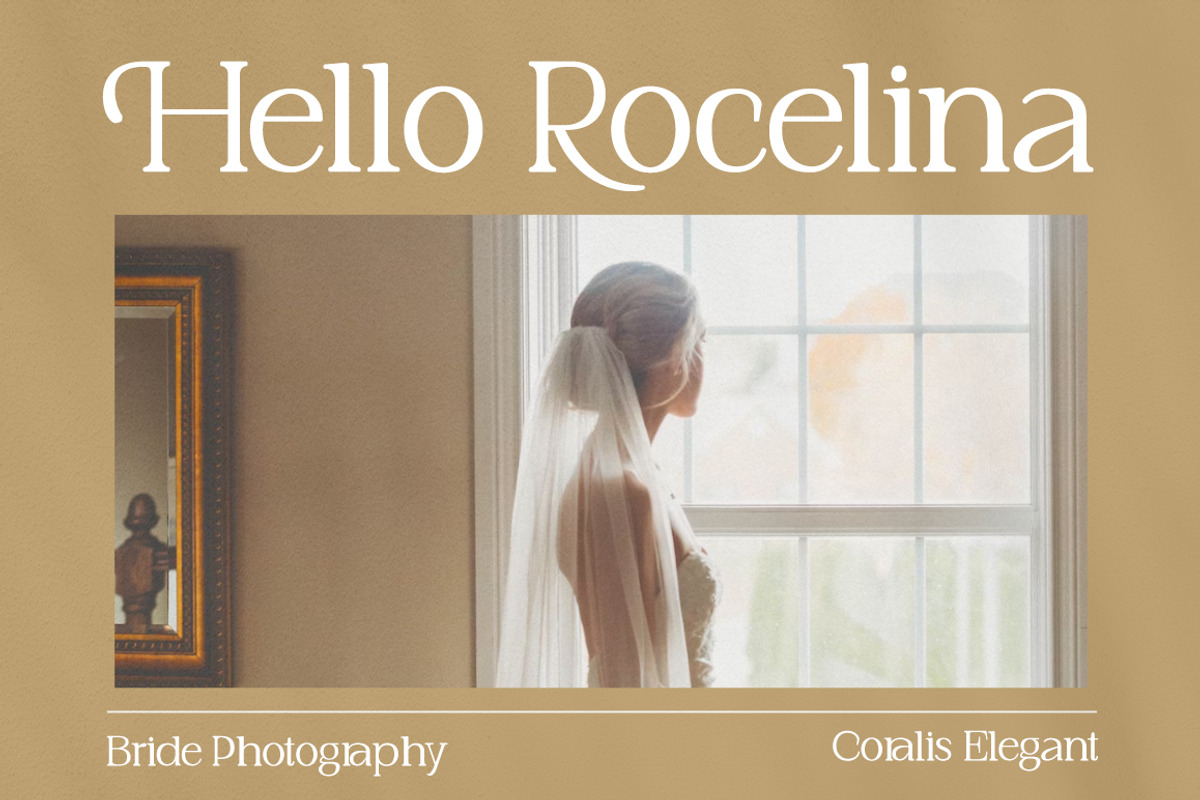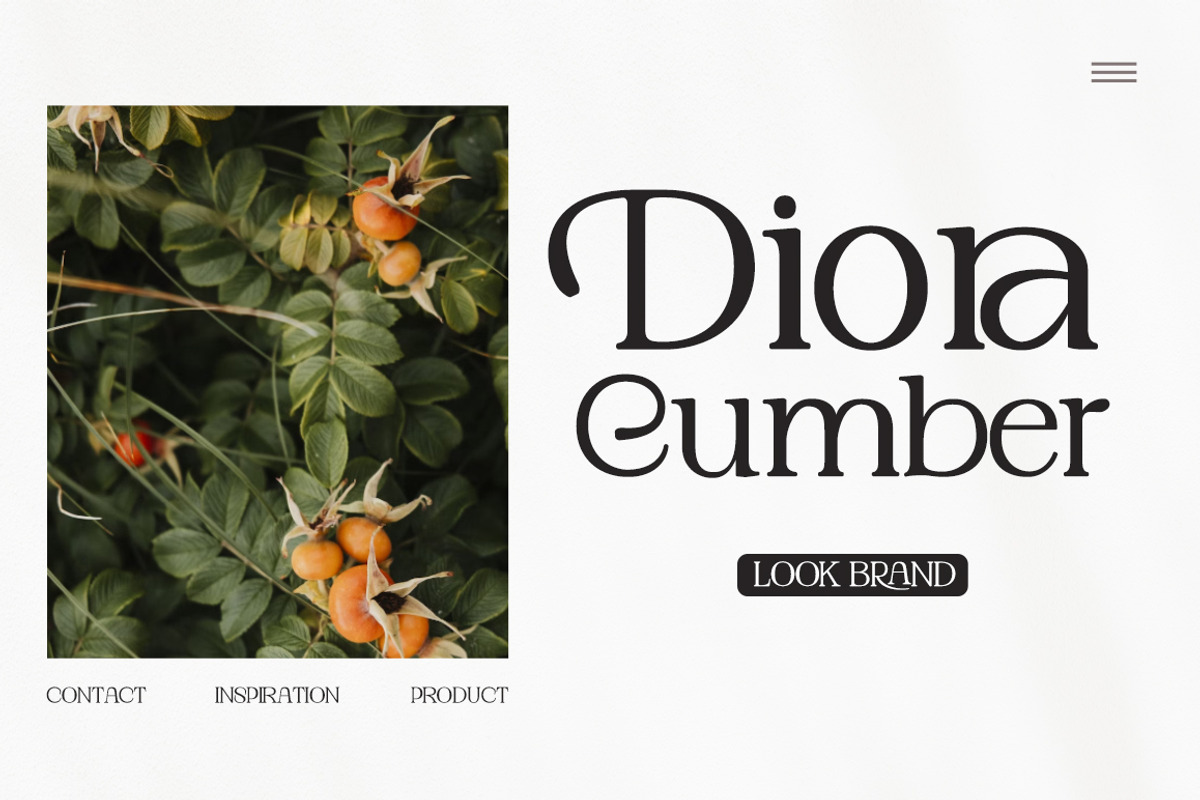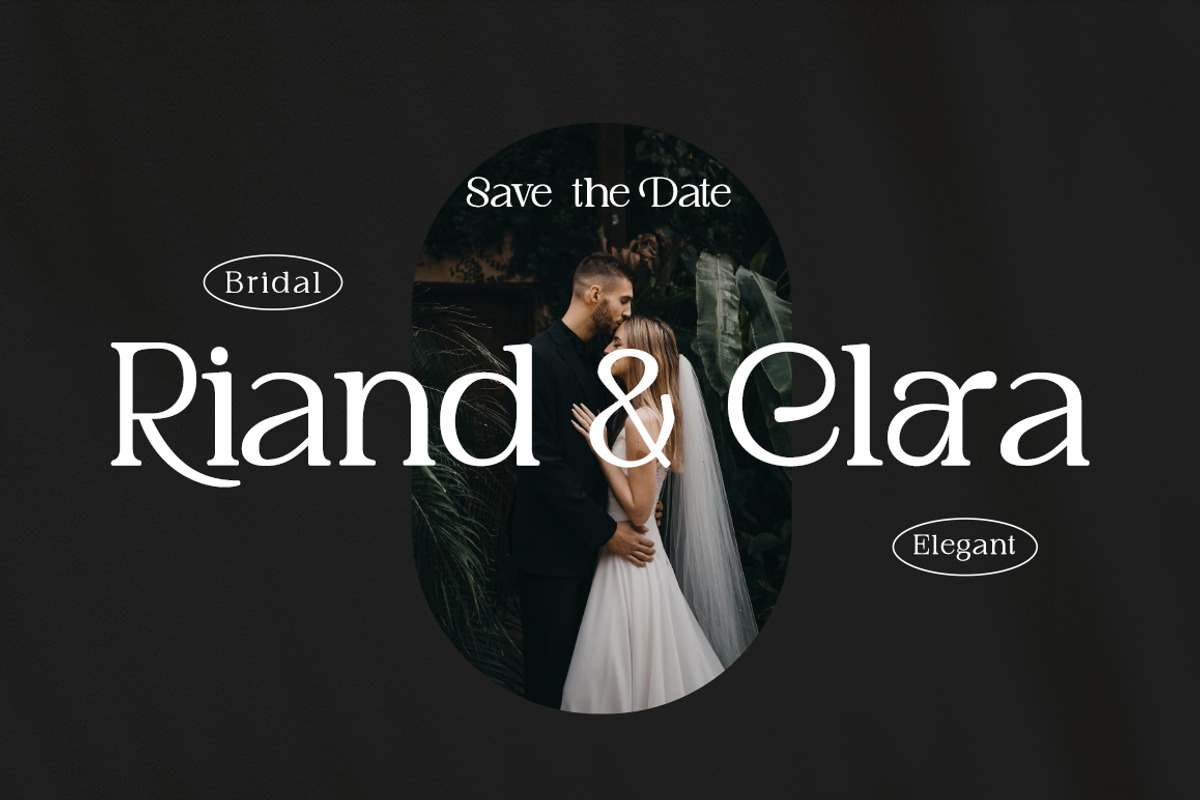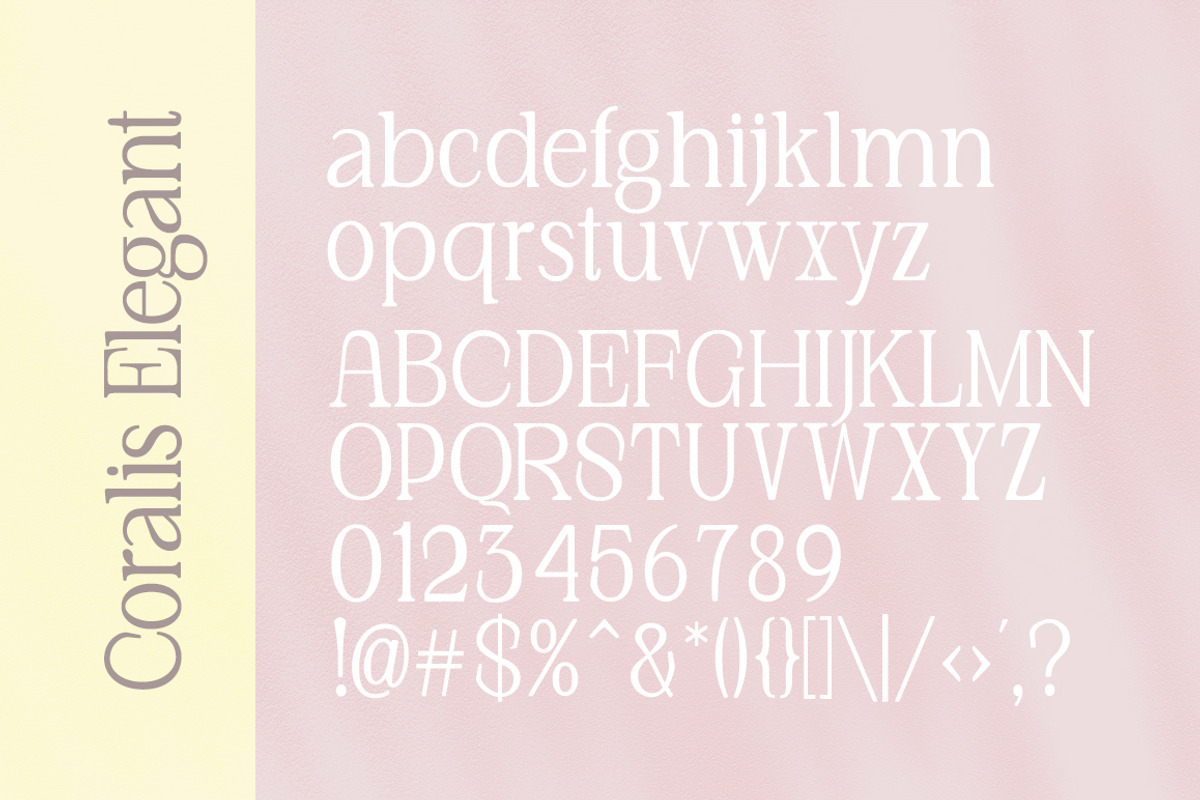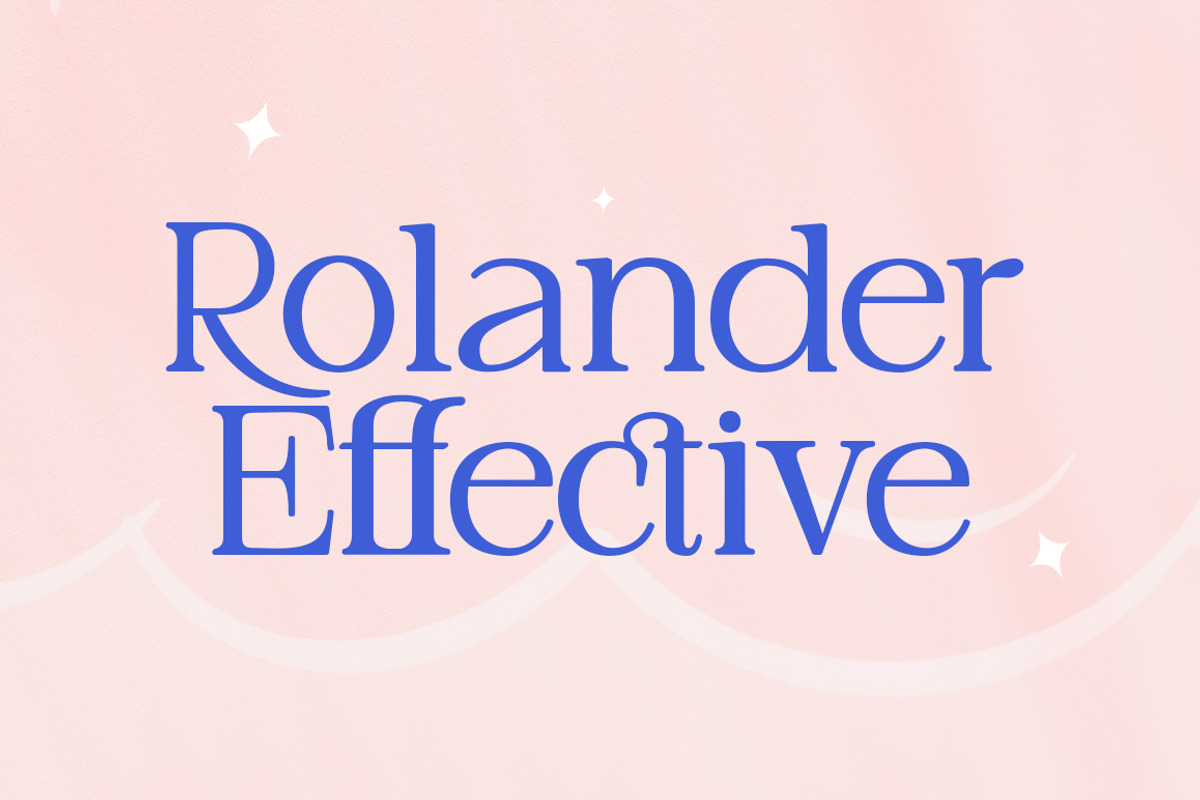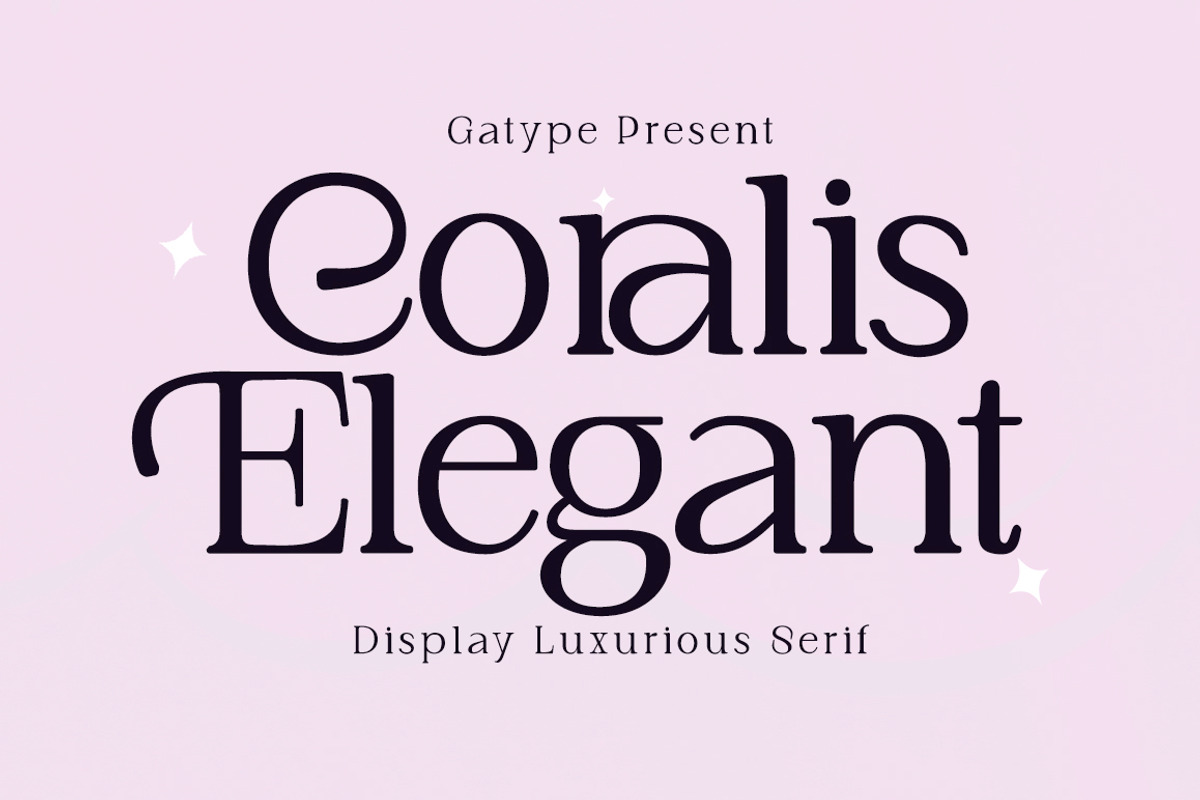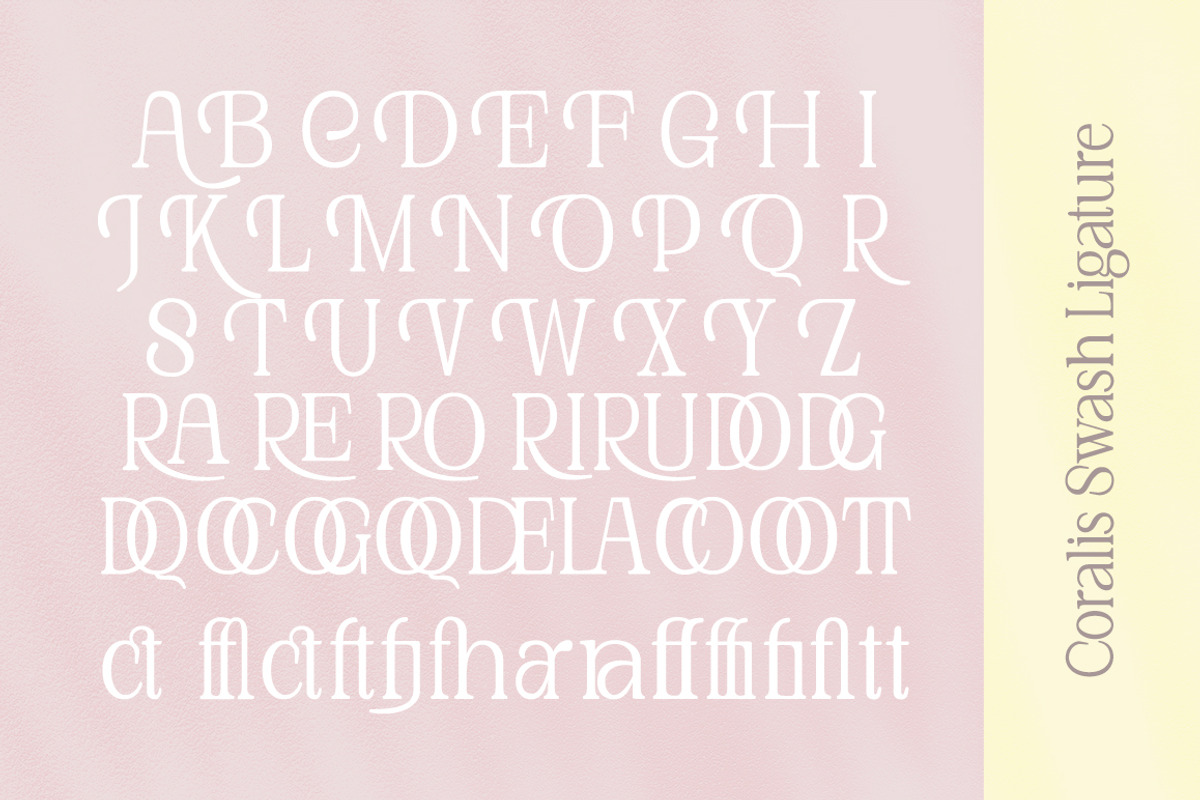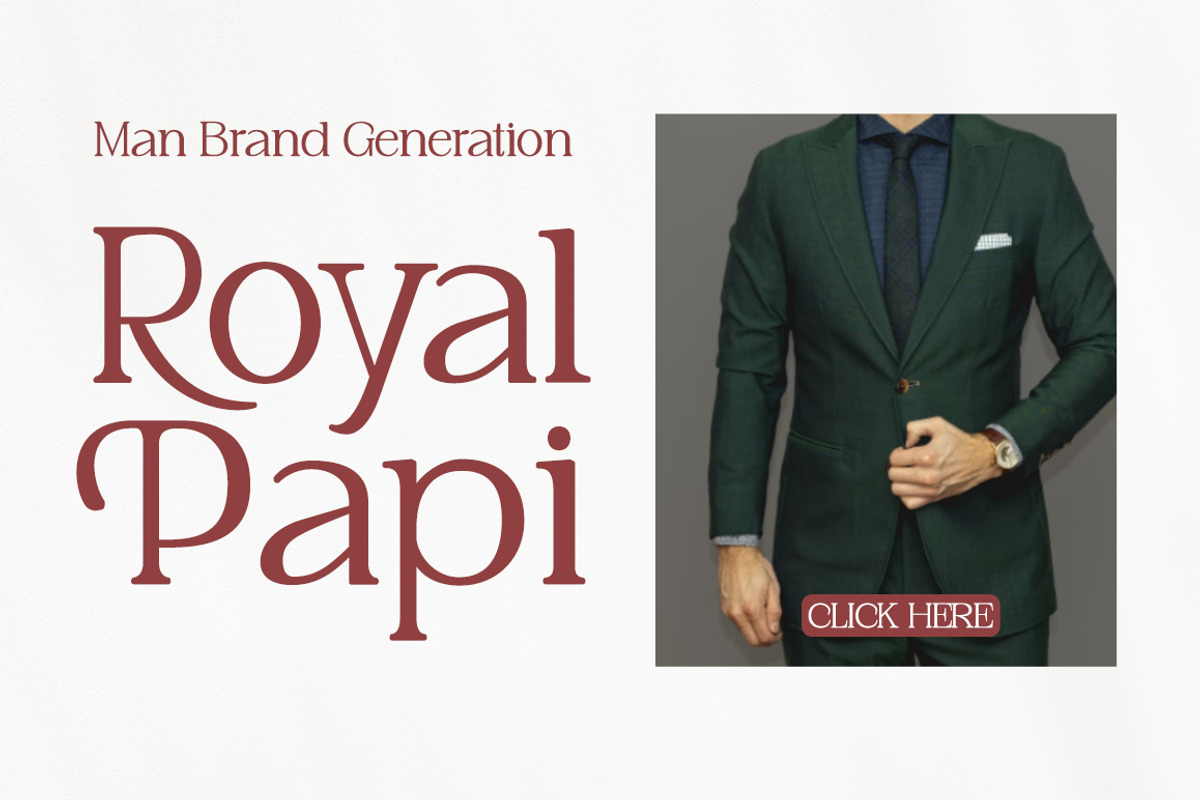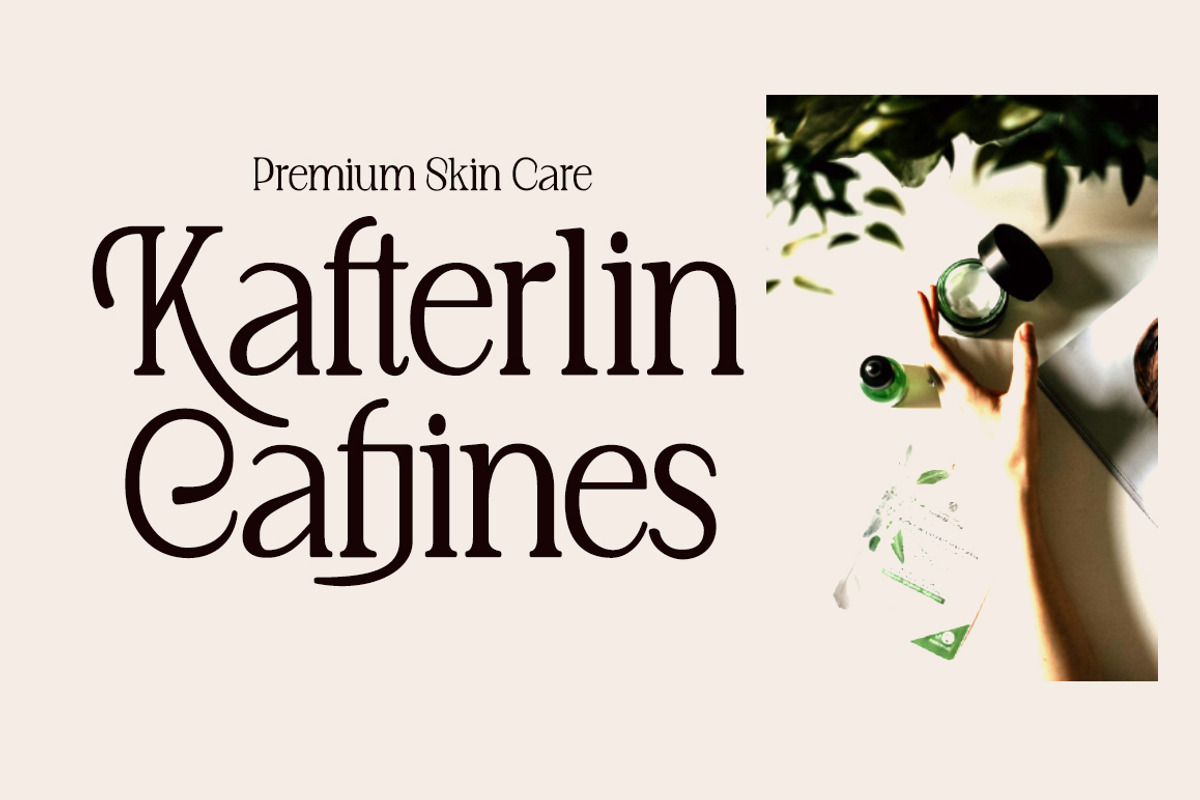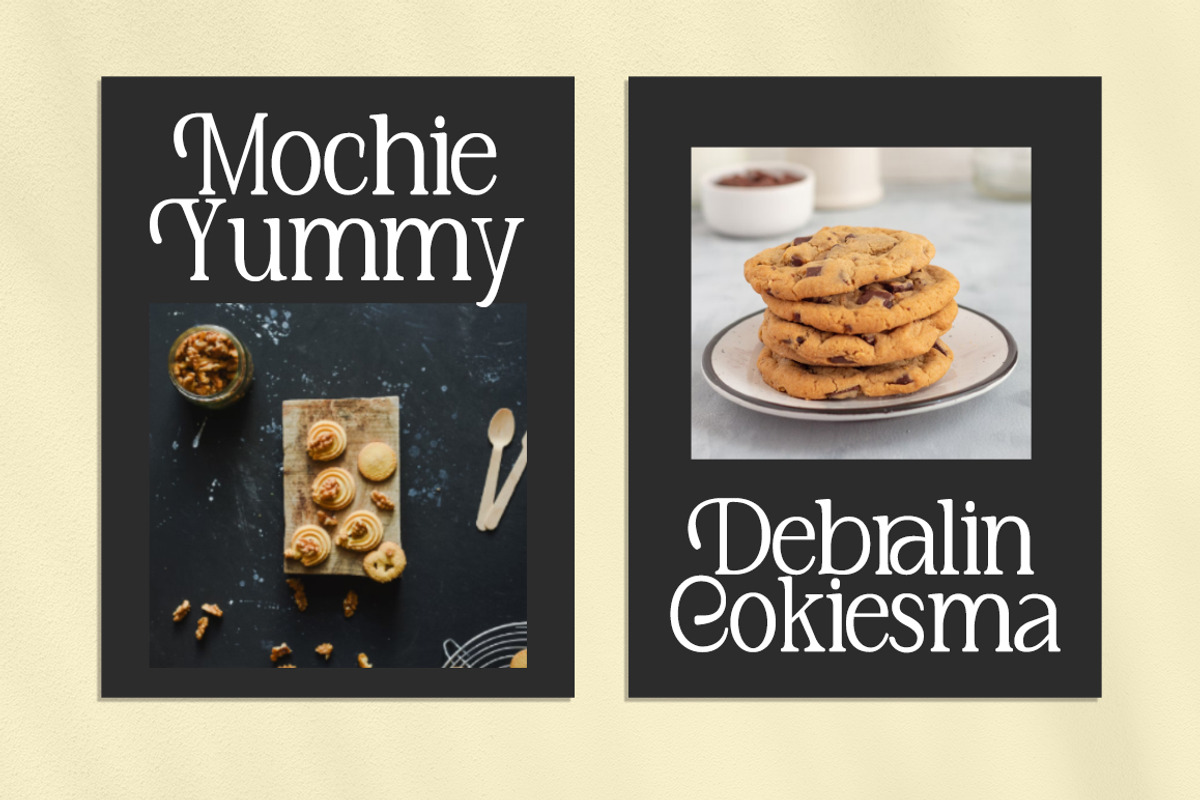
Coralis Elegant
Coralis Elegant serif with a creative atmosphere and perfect shape, inspired by today's beautiful Display serifs. thick, balanced and varied, born for luxury and beauty.
In my example I show how this script can be used. It's great for logotypes, branding, wedding invitations, romantic cards, retro labels, packaging, name spelling and more.
Coralis Elegant comes with beautiful uppercase and lowercase letters, numbers, and punctuation. In addition to the main character set, there are many alternative characters, start and end sweeps.